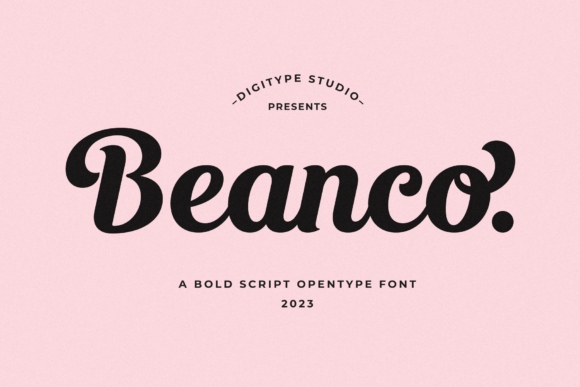
Introduction to Beanco Font
Beanco is a stylish and incredibly elegant script font.
Key Features of Beanco Font
Why Choose Beanco Font?
Beanco Font offers exceptional quality and versatility, making it a valuable addition to your design toolkit. Whether you’re creating for personal projects or commercial use, Beanco Font delivers professional results.